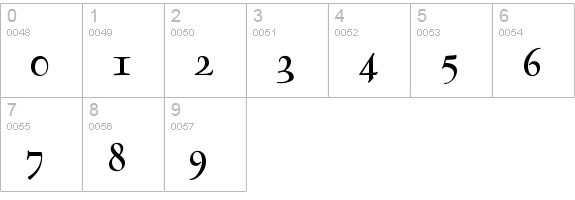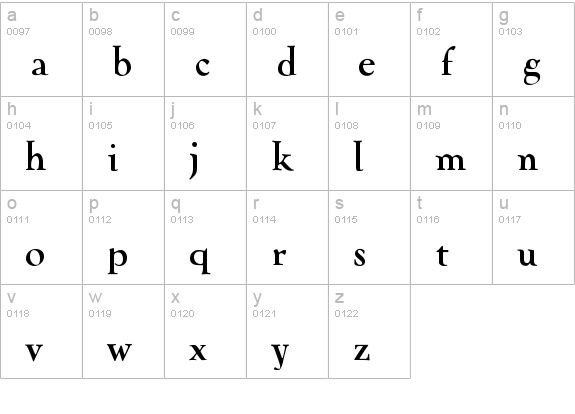
Oneleigh-Bold is a strong, high-contrast variant in the Oneleigh typeface family \xE2\x80\x94 well suited to headlines, attention-grabbing titles, and strong calls-to-action.